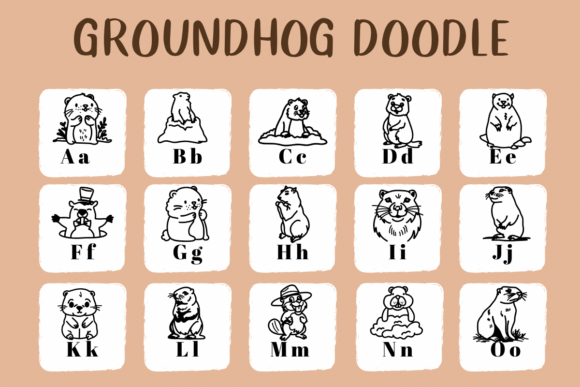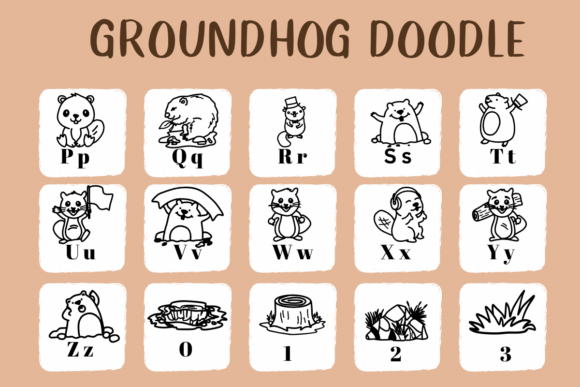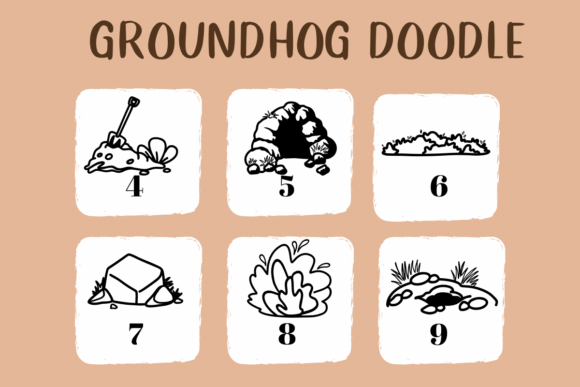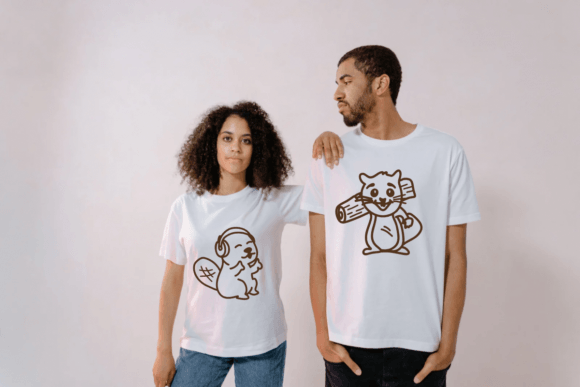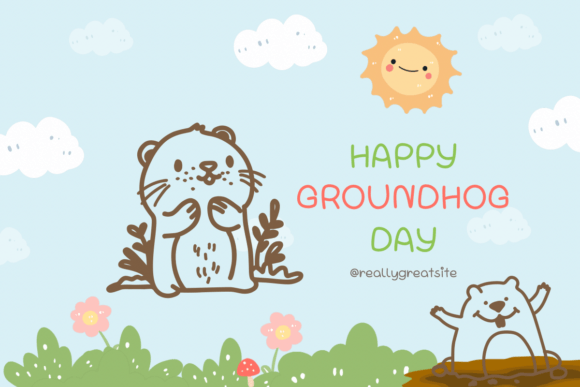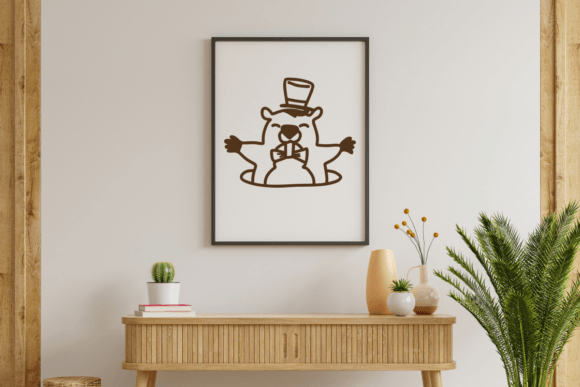
Introducing Groundhog Doodle Font: Add a Playful Touch to Your Designs
Are you looking for a font that can add a dash of fun and personality to your designs? Look no further than the Groundhog Doodle Font! This charming font is made up of cute hand-drawn doodles, where each letter or character is a little picture, perfect for adding charm to cards, crafts, or fun projects.
What is Groundhog Doodle Font?
Groundhog Doodle Font is a unique and creative typeface that features hand-drawn doodles as its characters. Each letter, number, and symbol is carefully crafted to resemble a small illustration, making it perfect for designs that require a playful and whimsical touch.
Whether you’re a designer, crafter, or DIY enthusiast, Groundhog Doodle Font is an excellent choice for adding visual interest and personality to your projects. The font’s simple yet creative design makes it easy to use and versatile enough to suit a wide range of applications.
Key Features of Groundhog Doodle Font
- Hand-drawn doodles: Each character is carefully crafted to resemble a small illustration, making it perfect for designs that require a personal touch.
- Cute and playful: The font’s playful design makes it ideal for projects that require a fun and lighthearted approach.
- Versatile: Groundhog Doodle Font can be used for a wide range of applications, from card making and crafting to digital design and branding.
Uses for Groundhog Doodle Font
Groundhog Doodle Font is perfect for a variety of projects, including:
- Card making: Add a personal touch to your greeting cards and invitations with this charming font.
- Crafting: Use Groundhog Doodle Font to add a playful touch to your scrapbooking, journaling, and other craft projects.
- Digital design: The font is perfect for digital designers who want to add a whimsical touch to their graphics, illustrations, and branding projects.
- DIY projects: Use Groundhog Doodle Font to add a personal touch to your DIY projects, such as signs, posters, and banners.
Tips for Using Groundhog Doodle Font
Here are a few tips for getting the most out of Groundhog Doodle Font:
- Experiment with colors: The font’s playful design looks great in a variety of colors, so don’t be afraid to experiment and find the perfect hue for your project.
- Mix and match characters: Groundhog Doodle Font features a range of characters, so try mixing and matching them to create unique and interesting combinations.
- Use it sparingly: While Groundhog Doodle Font is perfect for adding a playful touch to your designs, it’s best used sparingly to avoid overwhelming the viewer.
Groundhog Doodle Font is a fun and playful font that’s perfect for designers and crafters who want to add a dash of personality to their projects. With its hand-drawn doodles and versatile design, it’s an excellent choice for a wide range of applications, from card making and crafting to digital design and branding. So why not give it a try and see how it can add a playful touch to your designs?